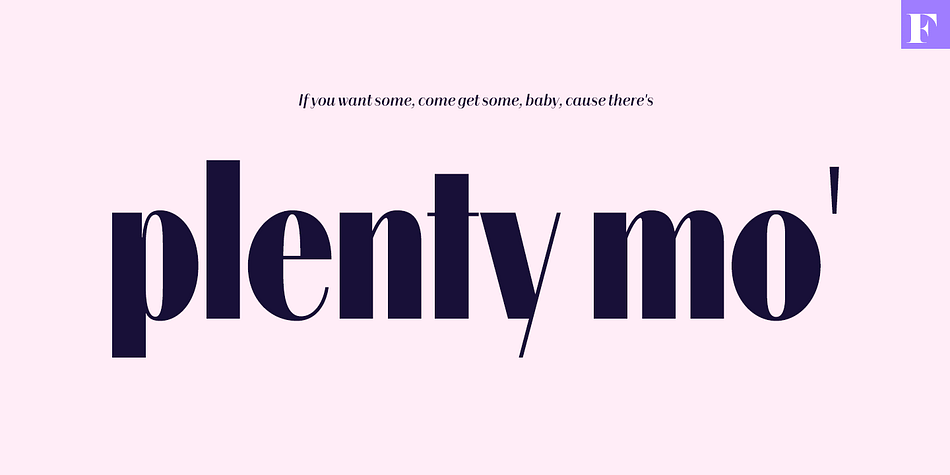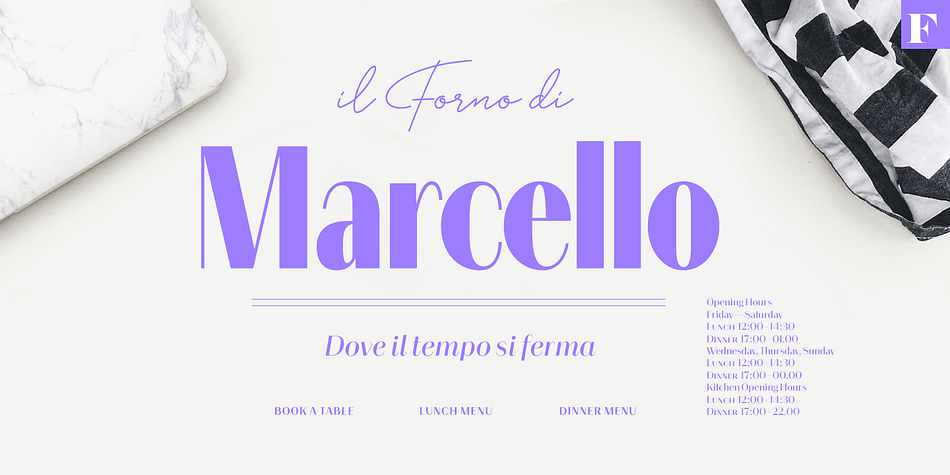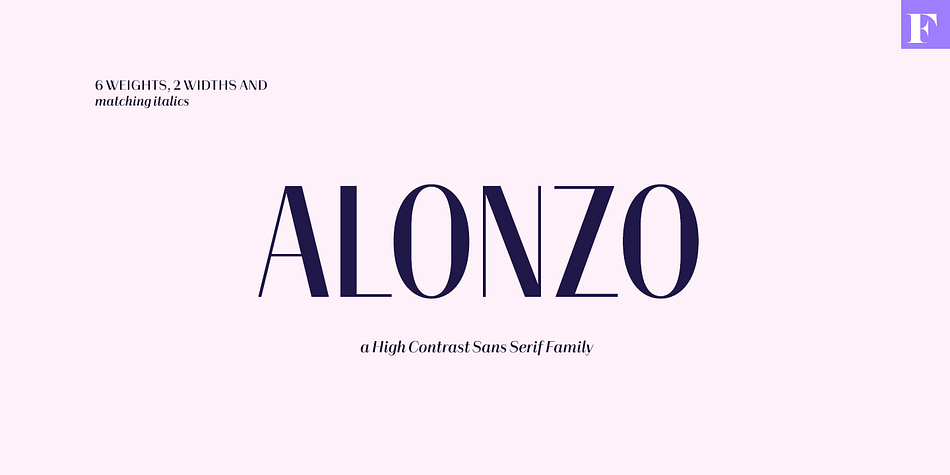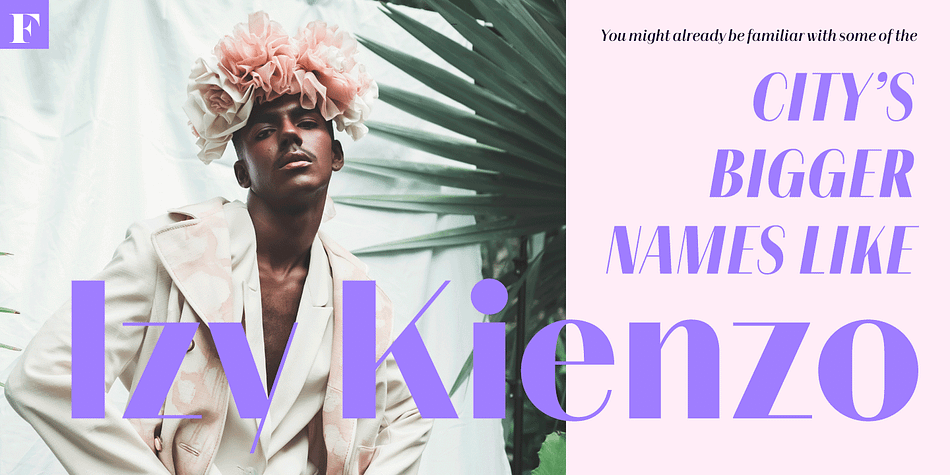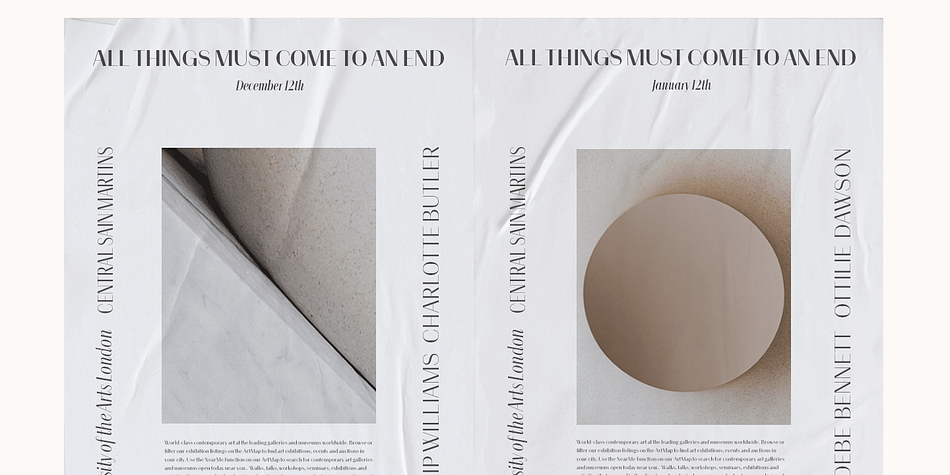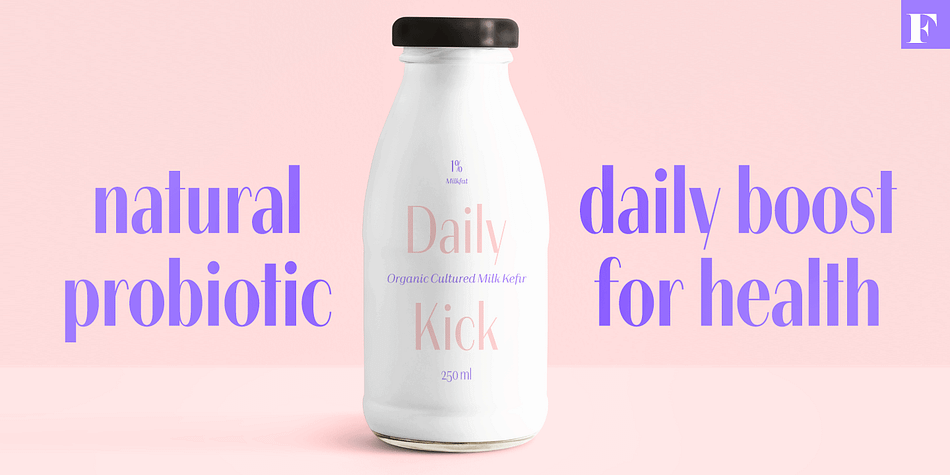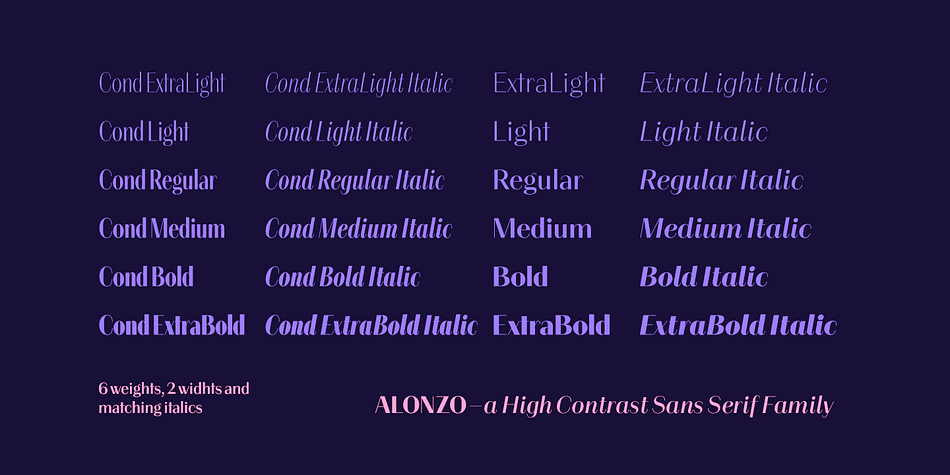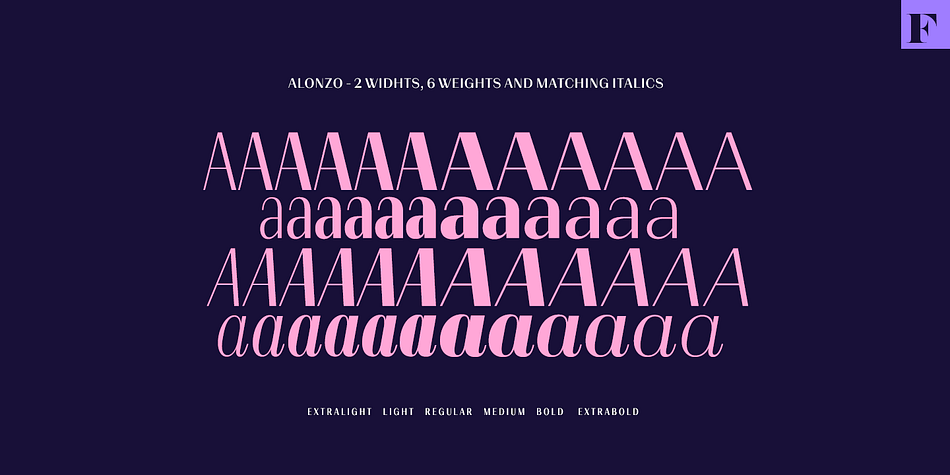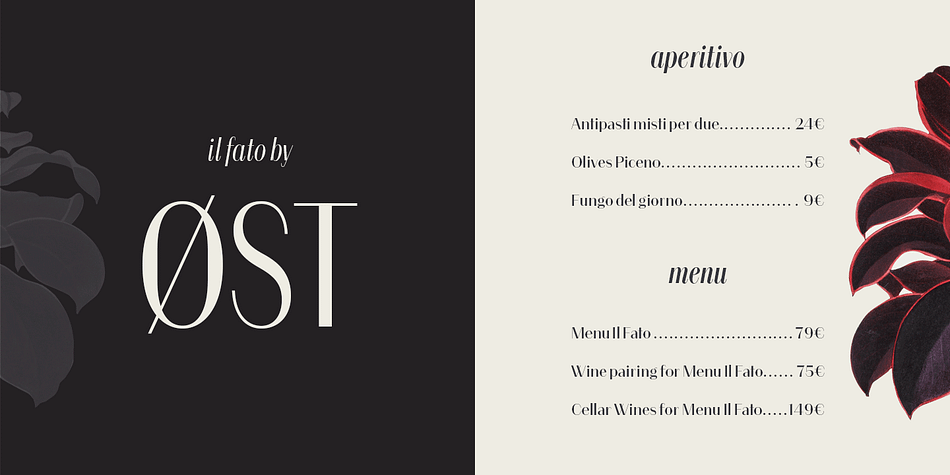
Designed by Teo Tuominen, Erik Bertell and Emil Bertell, Alonzo is an art deco and sans serif font family. This typeface has twenty-four styles and was published by Fenotype.
Alonzo is a modern cosmopolitan who speaks several languages fluently. Alonzo comes in six weights and two widths, as well as corresponding italics, making a total 24 styles.
Alonzo is an elegant, simplistic, high-contrast sans that is at home in high-end fashion and cultural environments, as well as in the world of restaurants and nightclubs.
While Alonzo Condensed is more illustrative and works best in display use, headlines, logotypes, labels and all that, Alonzo Regular works in a wider range of contexts, from body text to editorial and catalogs and more.
Alonzo is equipped with several OpenType features such as oldstyle figures, small caps, Standard Ligatures, Superior and Inferior Figures. In addition Alonzo has Stylistic Alternate lowercase “a” with round Bowl.
Me llamo Alonzo. Mucho gusto, piacere di conoscerti, nice to meet you!